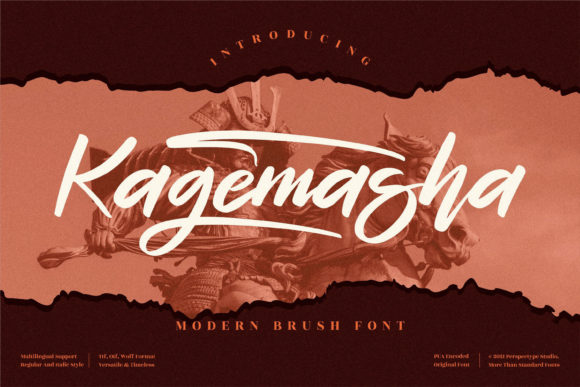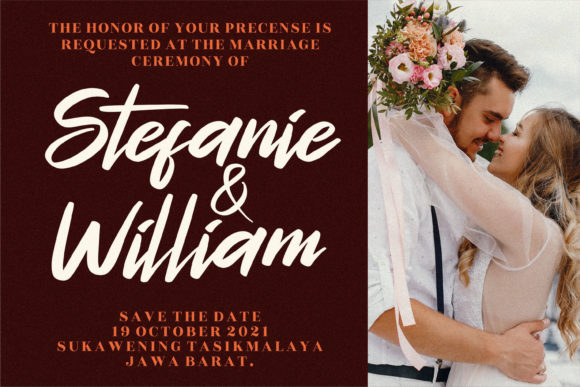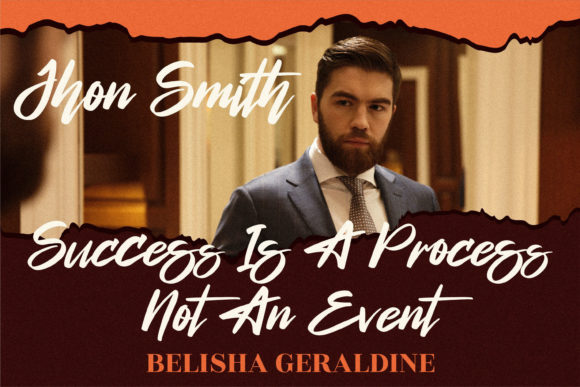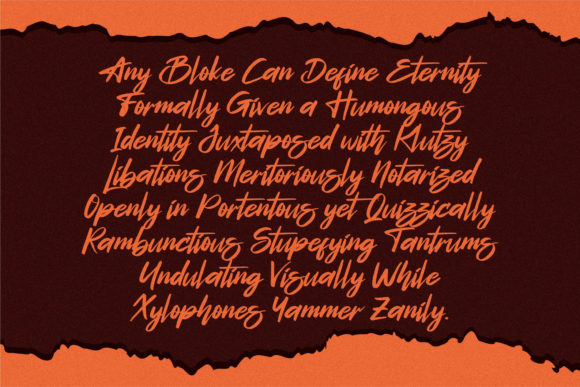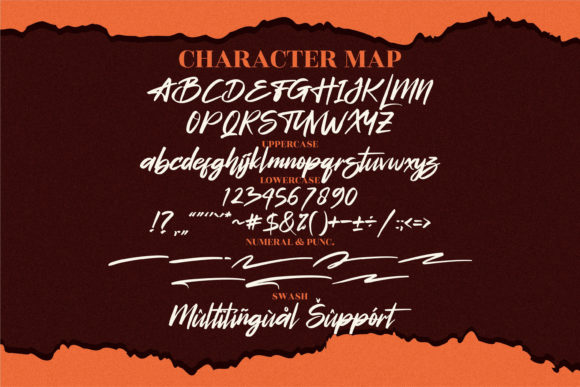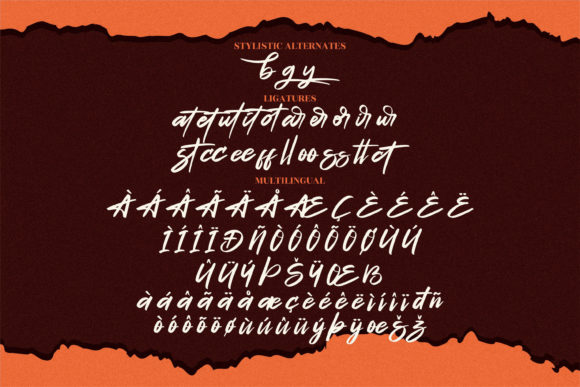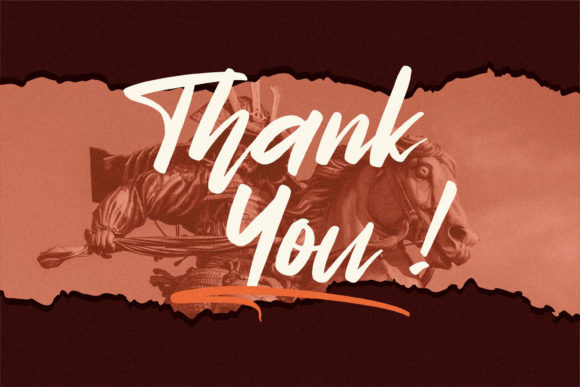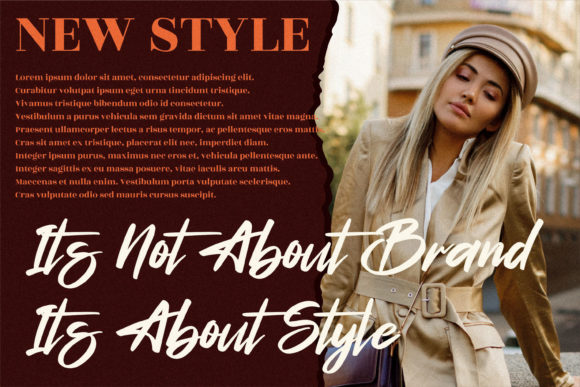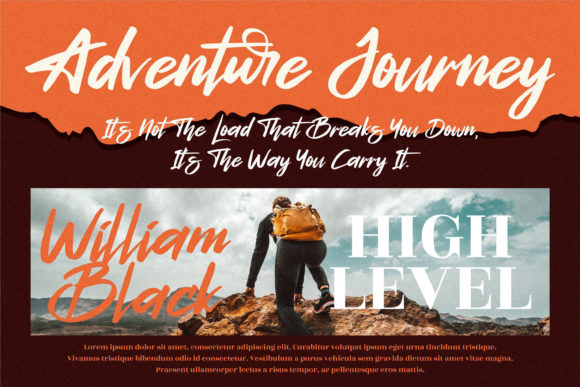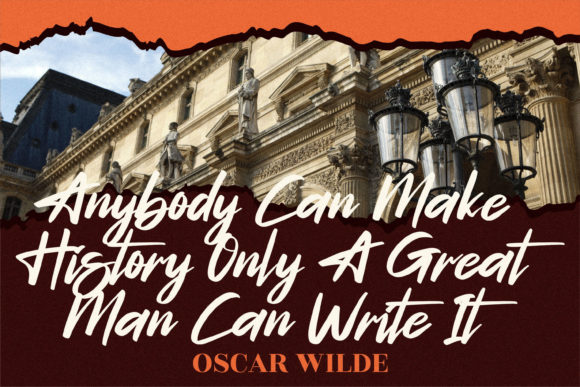
Kagemasha Font
About Kagemasha Font
Kagemasha is a stunning script font that exudes elegance and sophistication. With its contemporary atmosphere and impeccable form, this font is inspired by the timeless beauty of classic calligraphy. It strikes the perfect balance between not being too thin or too thick, resulting in a harmonious and versatile design.
The carefully crafted letterforms of Kagemasha enhance the beauty of your projects, adding a touch of refinement and grace. Each character is meticulously designed, ensuring a consistent and pleasing aesthetic throughout your text. Whether you’re creating invitations, logos, branding materials, or any other design project, Kagemasha will elevate the overall look and feel.
The versatility of Kagemasha allows it to be used in a wide range of applications. Its elegant and balanced style lends itself well to wedding invitations, stationery, and formal events. However, it can also be adapted for more contemporary and modern designs, adding a touch of sophistication to logos, packaging, and branding materials.
The timeless nature of Kagemasha makes it a font that can withstand the test of time. Its classic calligraphic influence gives it a sense of tradition and elegance, while its contemporary twists bring it into the modern era. This balance ensures that your designs will remain relevant and visually appealing for years to come.
In summary, Kagemasha is an elegant script font that combines contemporary aesthetics with the timeless beauty of classic calligraphy. Its balanced and varied letterforms enhance the beauty of your projects, adding a touch of sophistication and refinement. Whether you’re creating formal invitations or modern branding materials, Kagemasha will bring a sense of elegance and beauty to your designs.